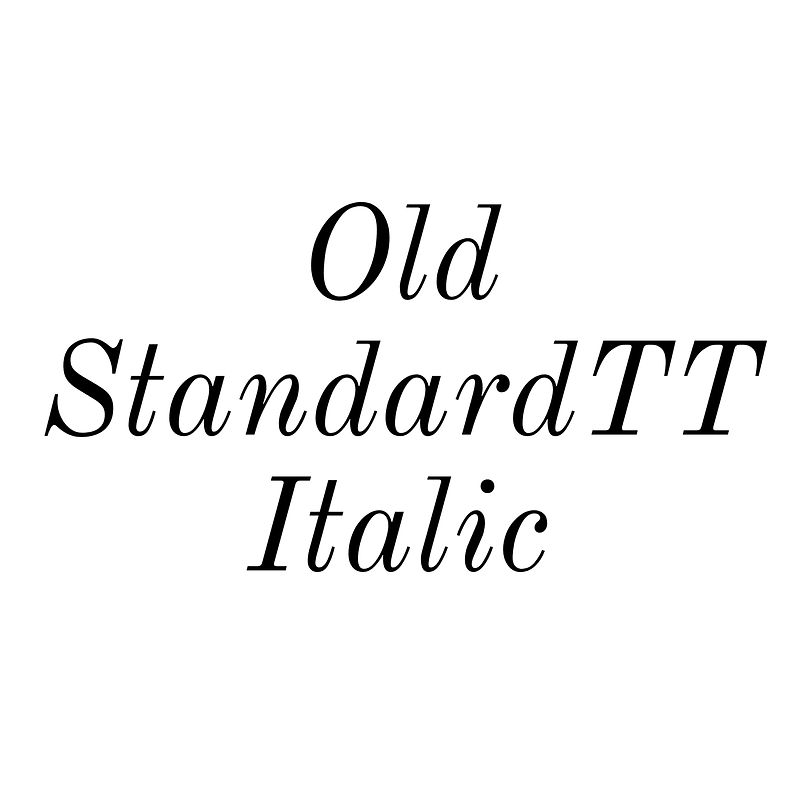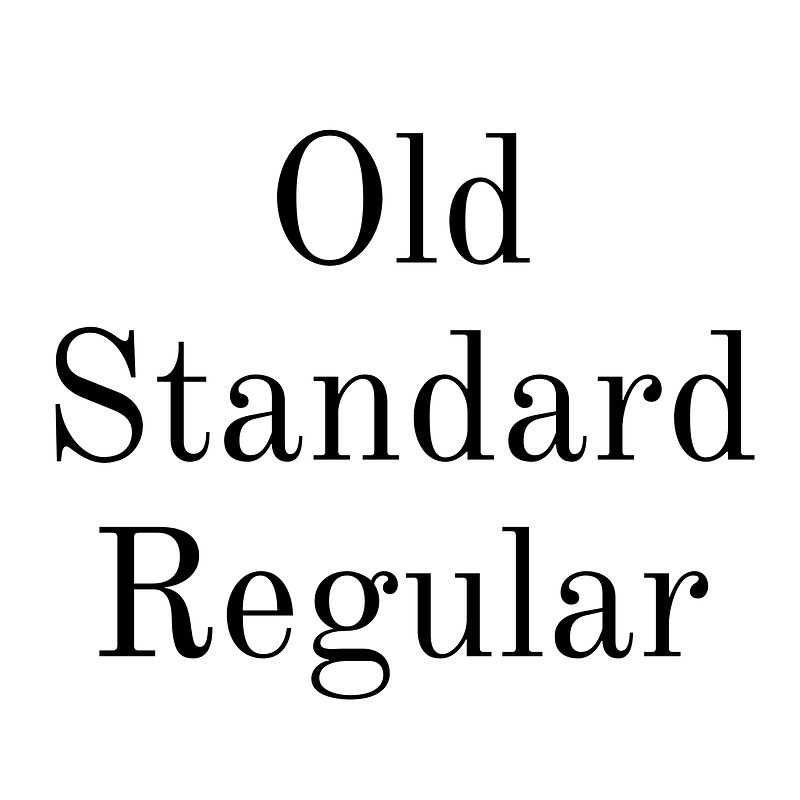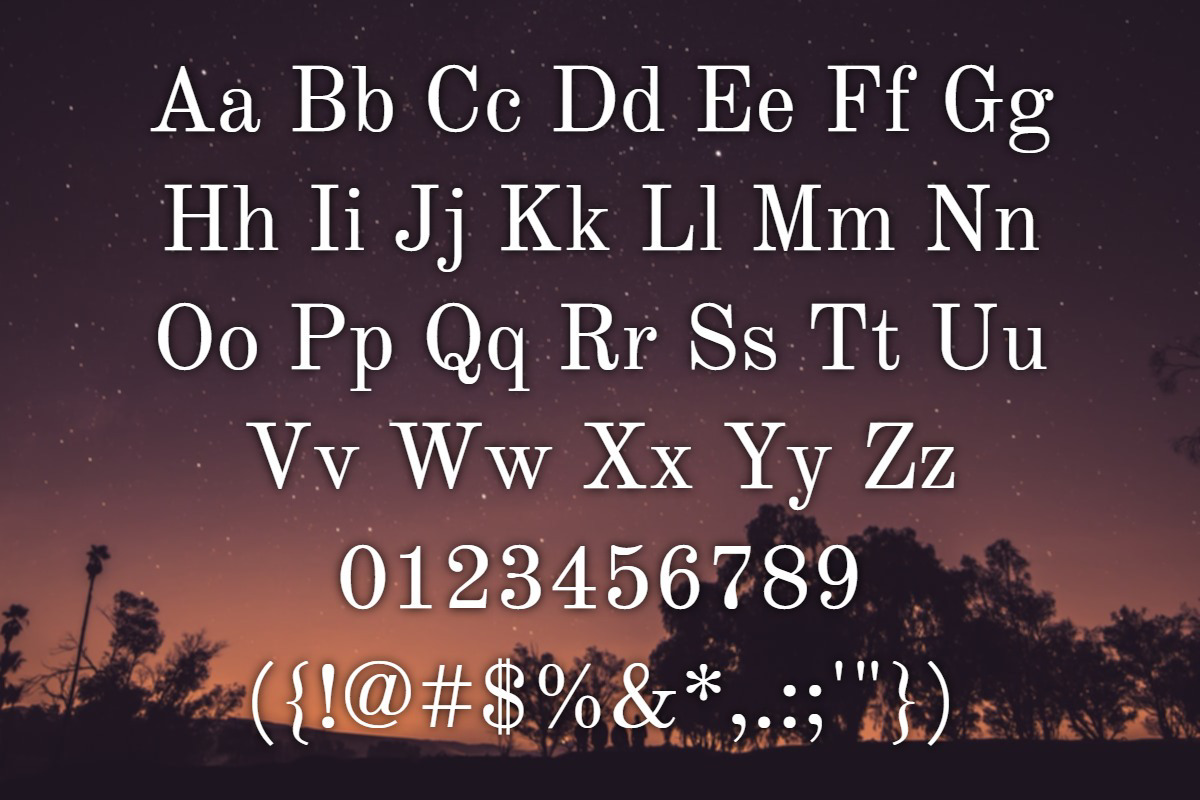
Old Standard Font . old standard tt is a free font that reproduces a classicist style of serif typefaces, popular in the late 19th. explore old standard designed by alexey kryukov at adobe fonts. The font has been downloaded 29,404 times. A serif typeface with 3 styles, available from adobe fonts. old standard reproduces a specific type of modern (classicist) style of serif typefaces, very commonly used in various editions of the late 19th. download the old standard font by alexey kryukov, a serif lettering font with public domain, gpl, ofl license. old standard tt is a font that recreates the classicist style of serif typefaces from the late 19th and early 20th century. free download of old standard font family with 6 styles. Released in 2008 by alexey kryukov and licensed for personal and commercial. old standard is a serif font family for classical and medieval studies, inspired by a typeface from the late xix and early xx century.
old standard tt is a free font that reproduces a classicist style of serif typefaces, popular in the late 19th. explore old standard designed by alexey kryukov at adobe fonts. Released in 2008 by alexey kryukov and licensed for personal and commercial. free download of old standard font family with 6 styles. The font has been downloaded 29,404 times. A serif typeface with 3 styles, available from adobe fonts. download the old standard font by alexey kryukov, a serif lettering font with public domain, gpl, ofl license. old standard reproduces a specific type of modern (classicist) style of serif typefaces, very commonly used in various editions of the late 19th. old standard tt is a font that recreates the classicist style of serif typefaces from the late 19th and early 20th century. old standard is a serif font family for classical and medieval studies, inspired by a typeface from the late xix and early xx century.
Old Standard Font free download of old standard font family with 6 styles. old standard tt is a font that recreates the classicist style of serif typefaces from the late 19th and early 20th century. Released in 2008 by alexey kryukov and licensed for personal and commercial. The font has been downloaded 29,404 times. old standard is a serif font family for classical and medieval studies, inspired by a typeface from the late xix and early xx century. A serif typeface with 3 styles, available from adobe fonts. old standard reproduces a specific type of modern (classicist) style of serif typefaces, very commonly used in various editions of the late 19th. download the old standard font by alexey kryukov, a serif lettering font with public domain, gpl, ofl license. free download of old standard font family with 6 styles. old standard tt is a free font that reproduces a classicist style of serif typefaces, popular in the late 19th. explore old standard designed by alexey kryukov at adobe fonts.
Old Standard TT Font Old Standard Font The font has been downloaded 29,404 times. old standard reproduces a specific type of modern (classicist) style of serif typefaces, very commonly used in various editions of the late 19th. download the old standard font by alexey kryukov, a serif lettering font with public domain, gpl, ofl license. old standard tt is a free font that reproduces. Old Standard Font.
Old English standard (D) Fonts Old Standard Font old standard reproduces a specific type of modern (classicist) style of serif typefaces, very commonly used in various editions of the late 19th. old standard is a serif font family for classical and medieval studies, inspired by a typeface from the late xix and early xx century. old standard tt is a free font that reproduces a. Old Standard Font.
Old Standard Tt Font Free Download Old Standard Font old standard reproduces a specific type of modern (classicist) style of serif typefaces, very commonly used in various editions of the late 19th. explore old standard designed by alexey kryukov at adobe fonts. download the old standard font by alexey kryukov, a serif lettering font with public domain, gpl, ofl license. Released in 2008 by alexey kryukov. Old Standard Font.
Old Standard Font Free Download Cofonts Old Standard Font free download of old standard font family with 6 styles. old standard reproduces a specific type of modern (classicist) style of serif typefaces, very commonly used in various editions of the late 19th. explore old standard designed by alexey kryukov at adobe fonts. A serif typeface with 3 styles, available from adobe fonts. old standard tt. Old Standard Font.
Old Standard TT Font Download Fonts4Free Old Standard Font explore old standard designed by alexey kryukov at adobe fonts. old standard reproduces a specific type of modern (classicist) style of serif typefaces, very commonly used in various editions of the late 19th. The font has been downloaded 29,404 times. download the old standard font by alexey kryukov, a serif lettering font with public domain, gpl, ofl. Old Standard Font.
Identifont Old Standard Bold Old Standard Font The font has been downloaded 29,404 times. explore old standard designed by alexey kryukov at adobe fonts. old standard tt is a free font that reproduces a classicist style of serif typefaces, popular in the late 19th. old standard reproduces a specific type of modern (classicist) style of serif typefaces, very commonly used in various editions of. Old Standard Font.
Old Standard Font Download Old Standard Font explore old standard designed by alexey kryukov at adobe fonts. The font has been downloaded 29,404 times. old standard tt is a font that recreates the classicist style of serif typefaces from the late 19th and early 20th century. A serif typeface with 3 styles, available from adobe fonts. old standard reproduces a specific type of modern. Old Standard Font.
Old Standard Font YouWorkForThem Old Standard Font download the old standard font by alexey kryukov, a serif lettering font with public domain, gpl, ofl license. Released in 2008 by alexey kryukov and licensed for personal and commercial. explore old standard designed by alexey kryukov at adobe fonts. old standard reproduces a specific type of modern (classicist) style of serif typefaces, very commonly used in. Old Standard Font.
Old Standard Font Alexey Kryukov FontSpace Old Standard Font explore old standard designed by alexey kryukov at adobe fonts. old standard is a serif font family for classical and medieval studies, inspired by a typeface from the late xix and early xx century. download the old standard font by alexey kryukov, a serif lettering font with public domain, gpl, ofl license. A serif typeface with 3. Old Standard Font.
Old Standard Regular free Font What Font Is Old Standard Font explore old standard designed by alexey kryukov at adobe fonts. A serif typeface with 3 styles, available from adobe fonts. download the old standard font by alexey kryukov, a serif lettering font with public domain, gpl, ofl license. old standard tt is a free font that reproduces a classicist style of serif typefaces, popular in the late. Old Standard Font.